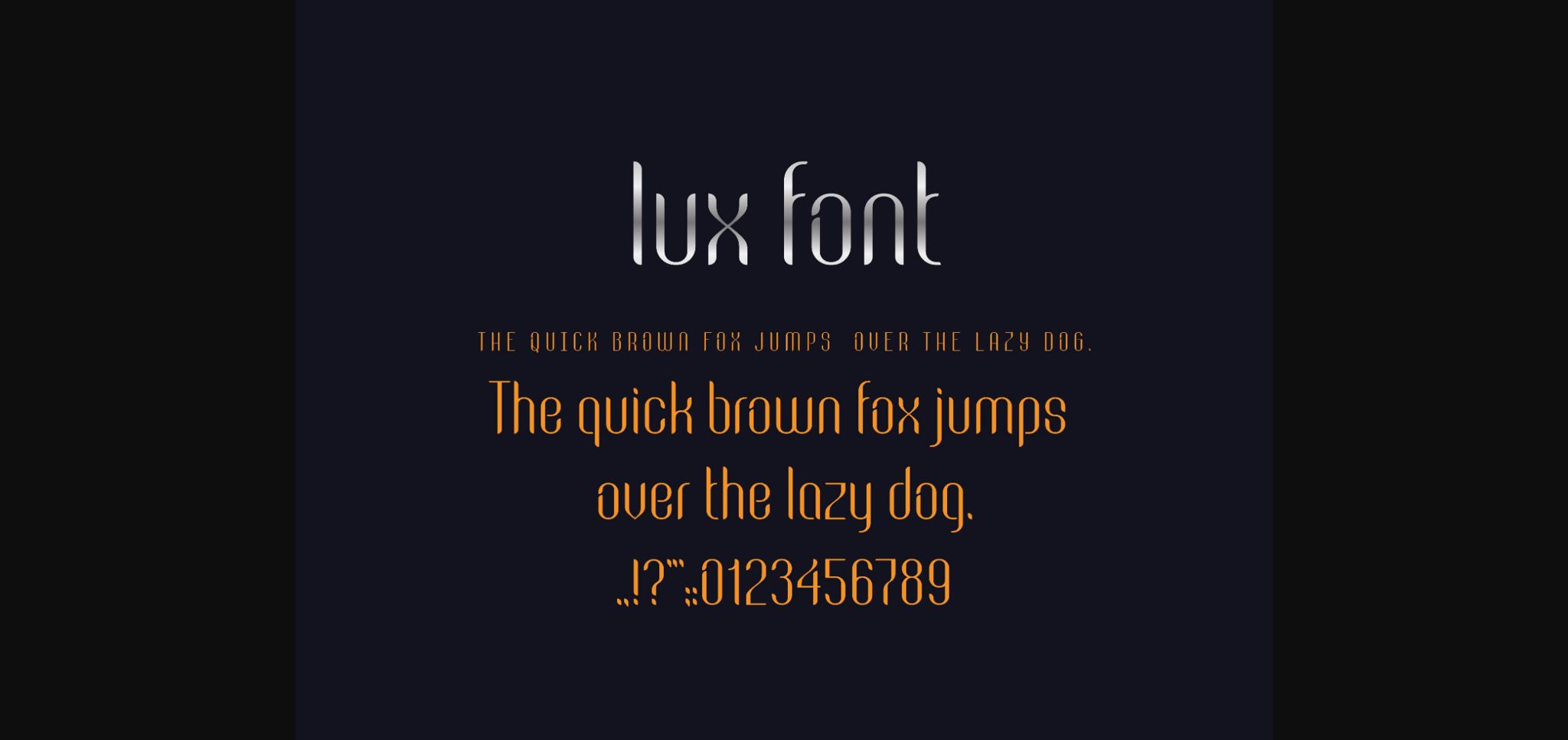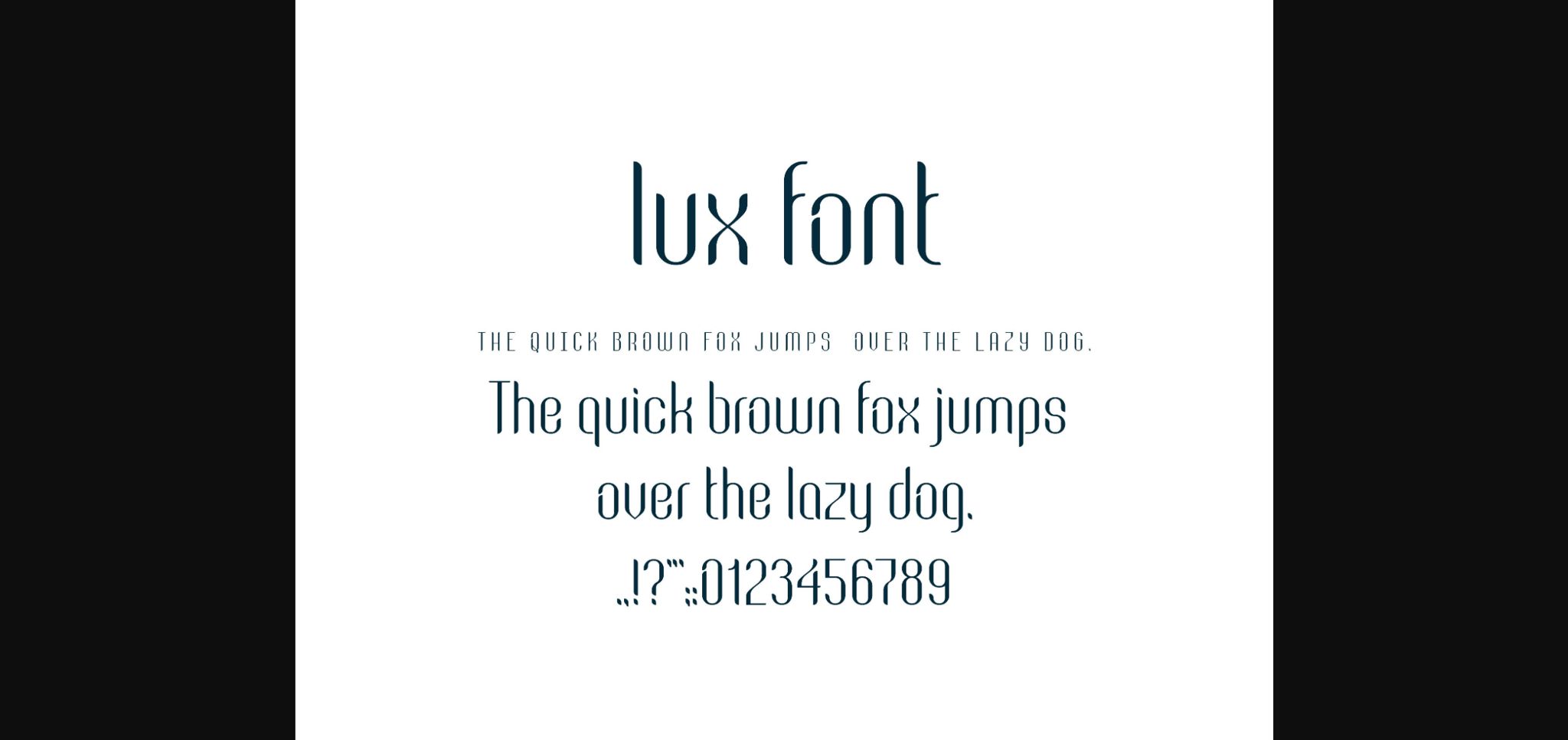
About Lux Font
Lux is a classy sans-serif font. It has upper and lower case letters that look amazing in both large and small settings. It’s perfect for your upcoming projects, such as luxury logos and branding, editorial design, women’s magazine, cosmetic brand, and more.